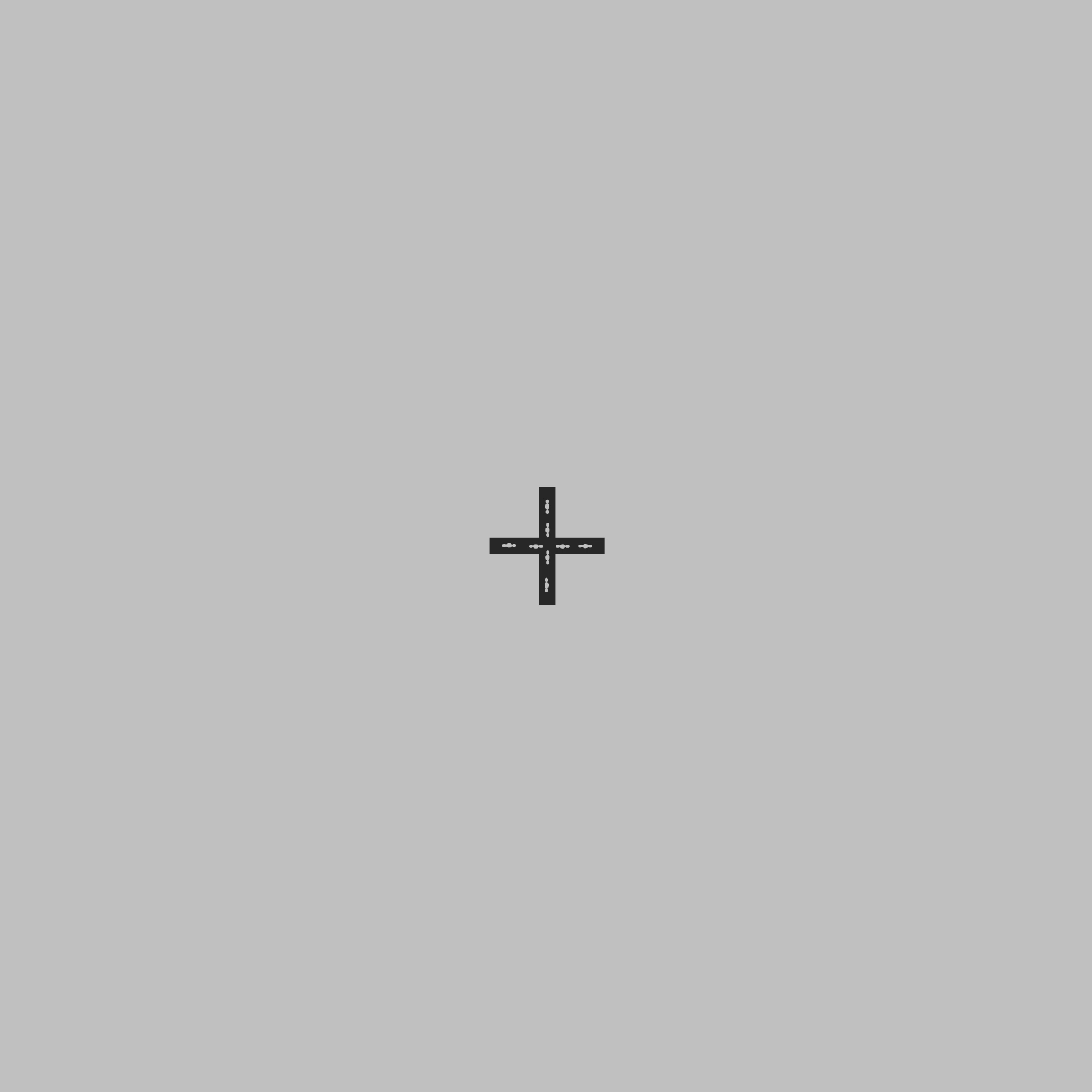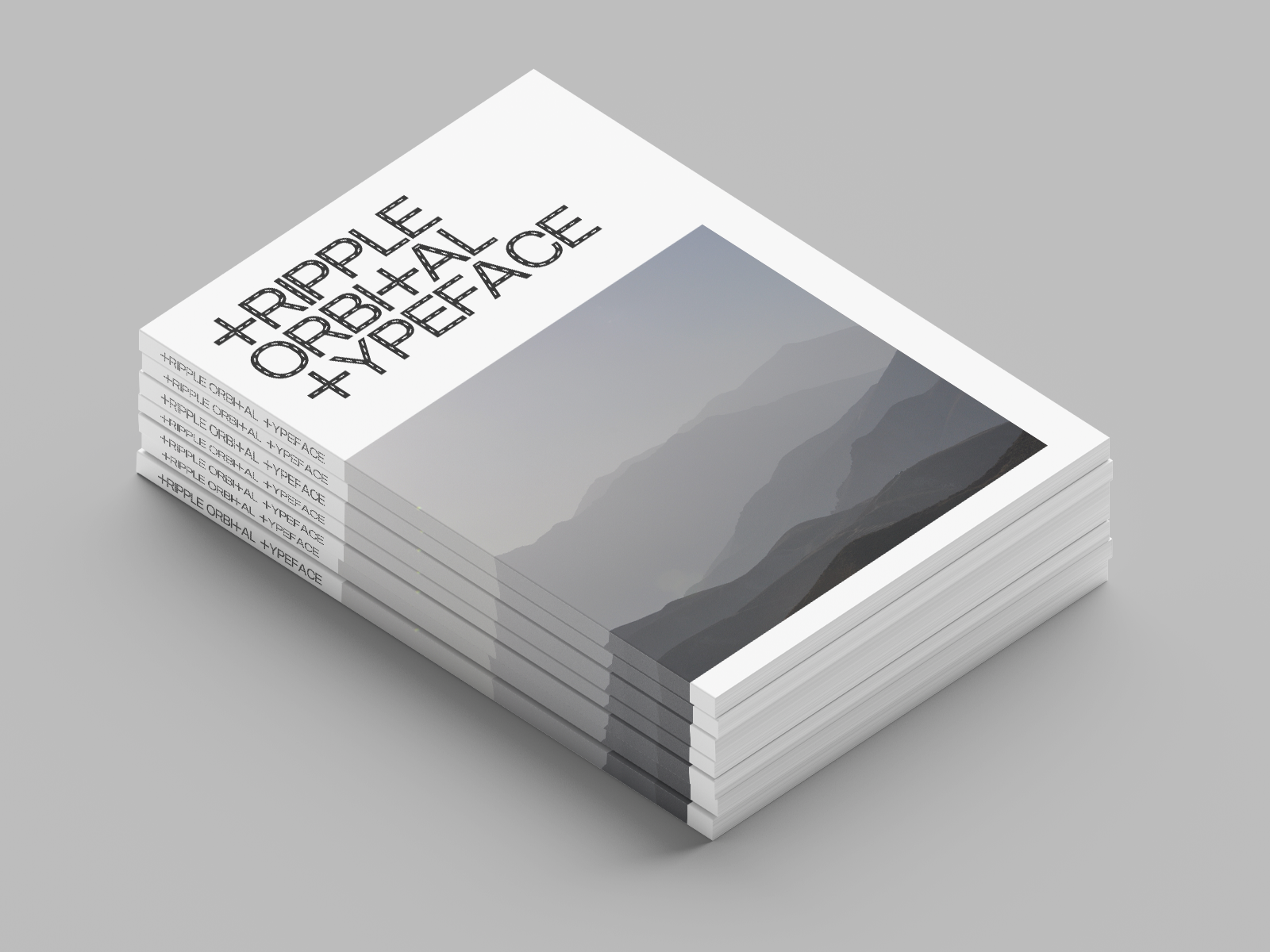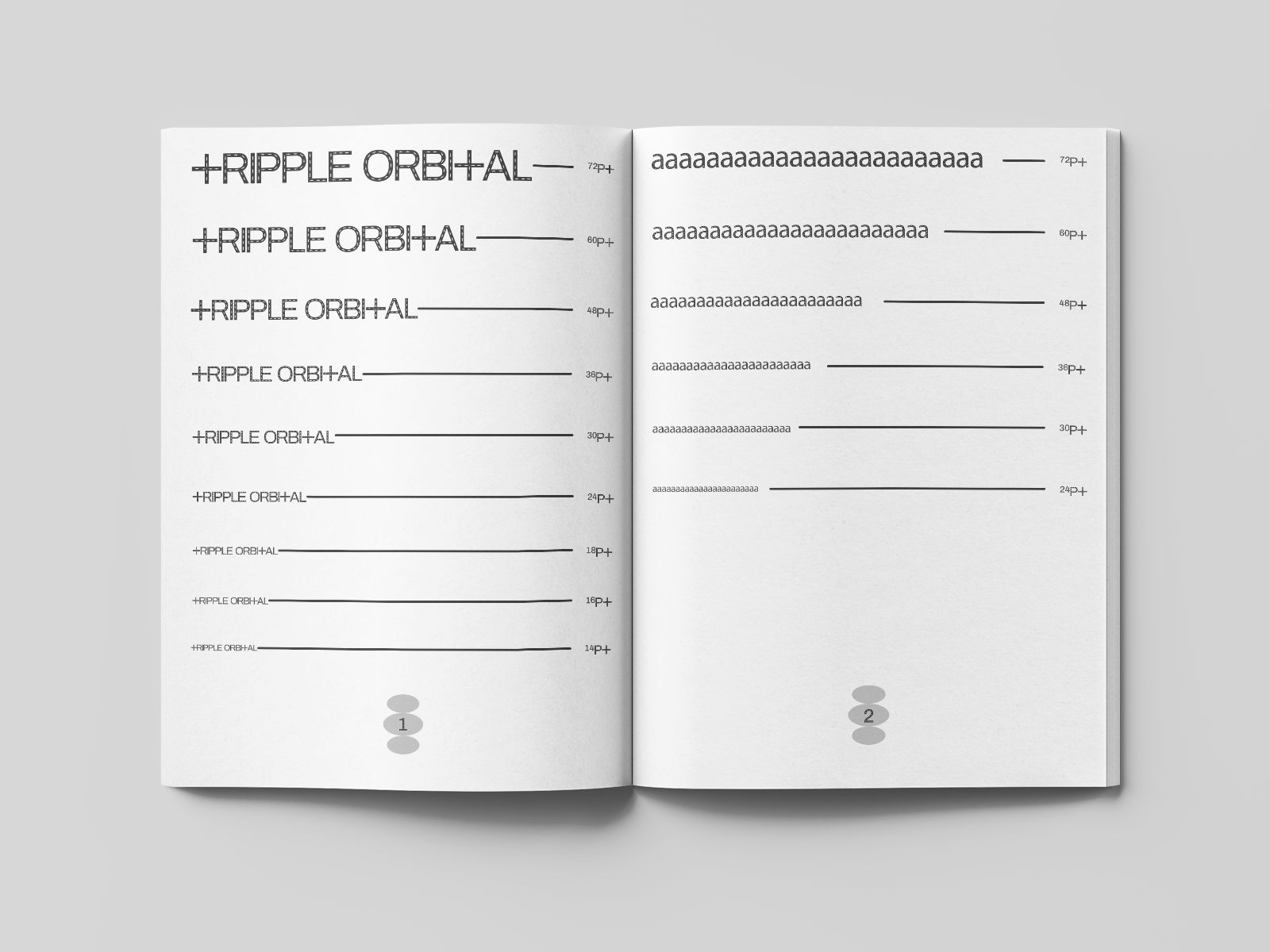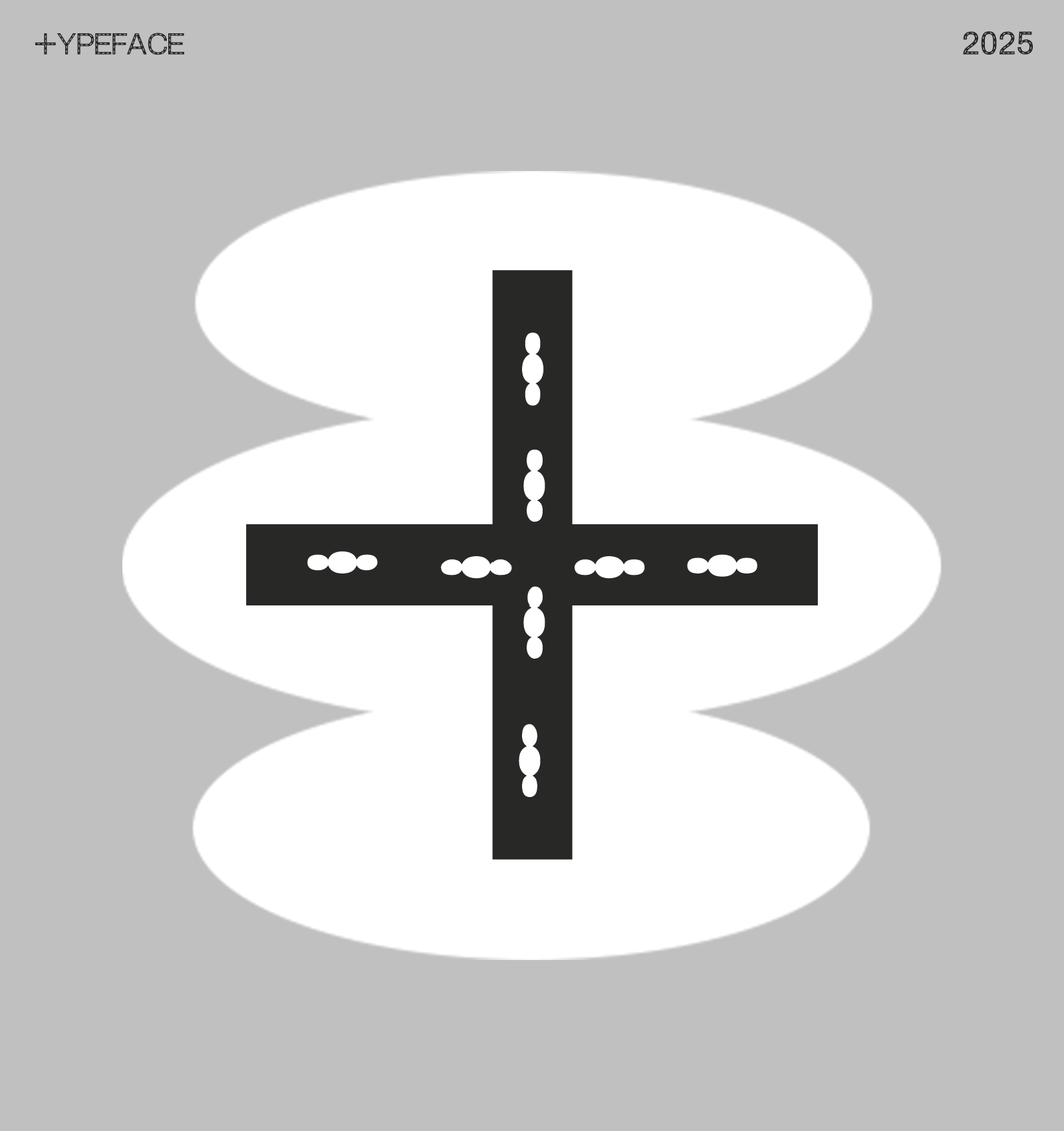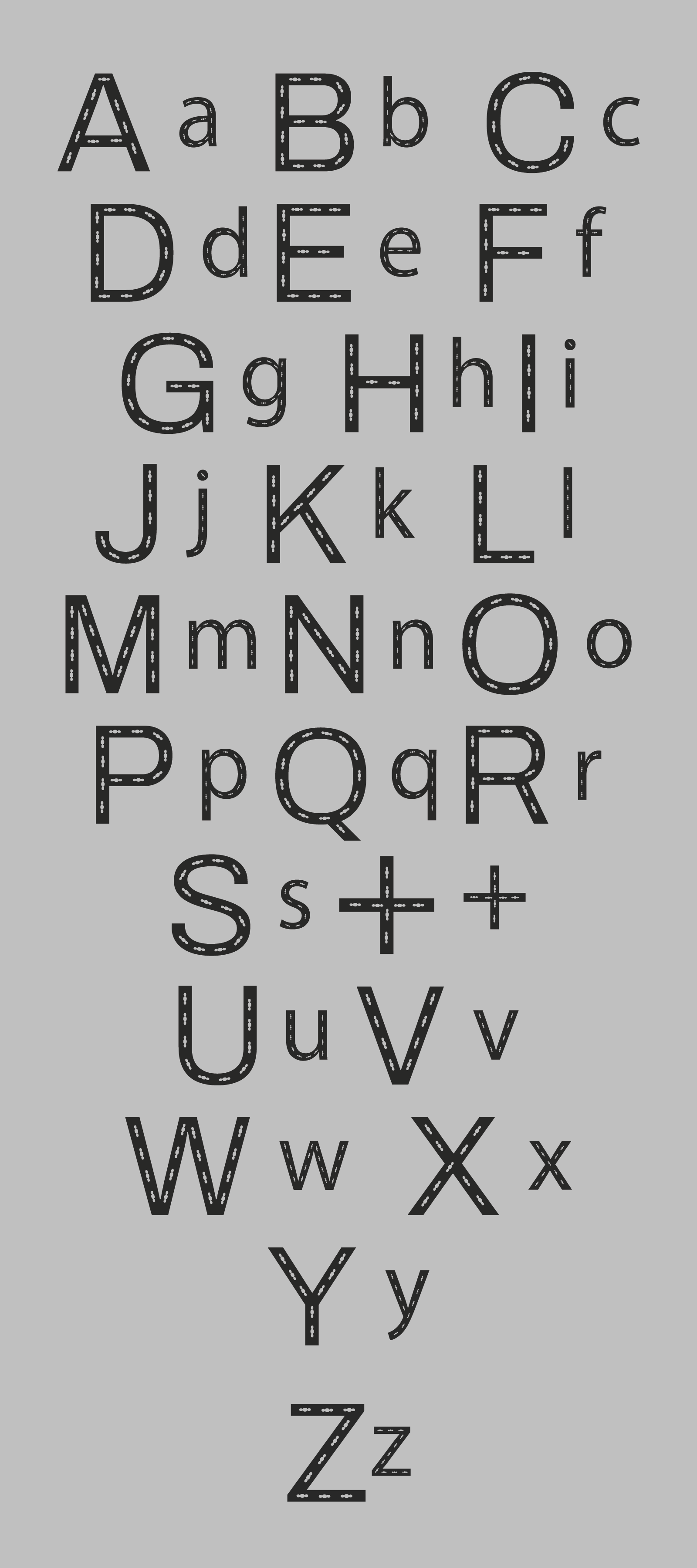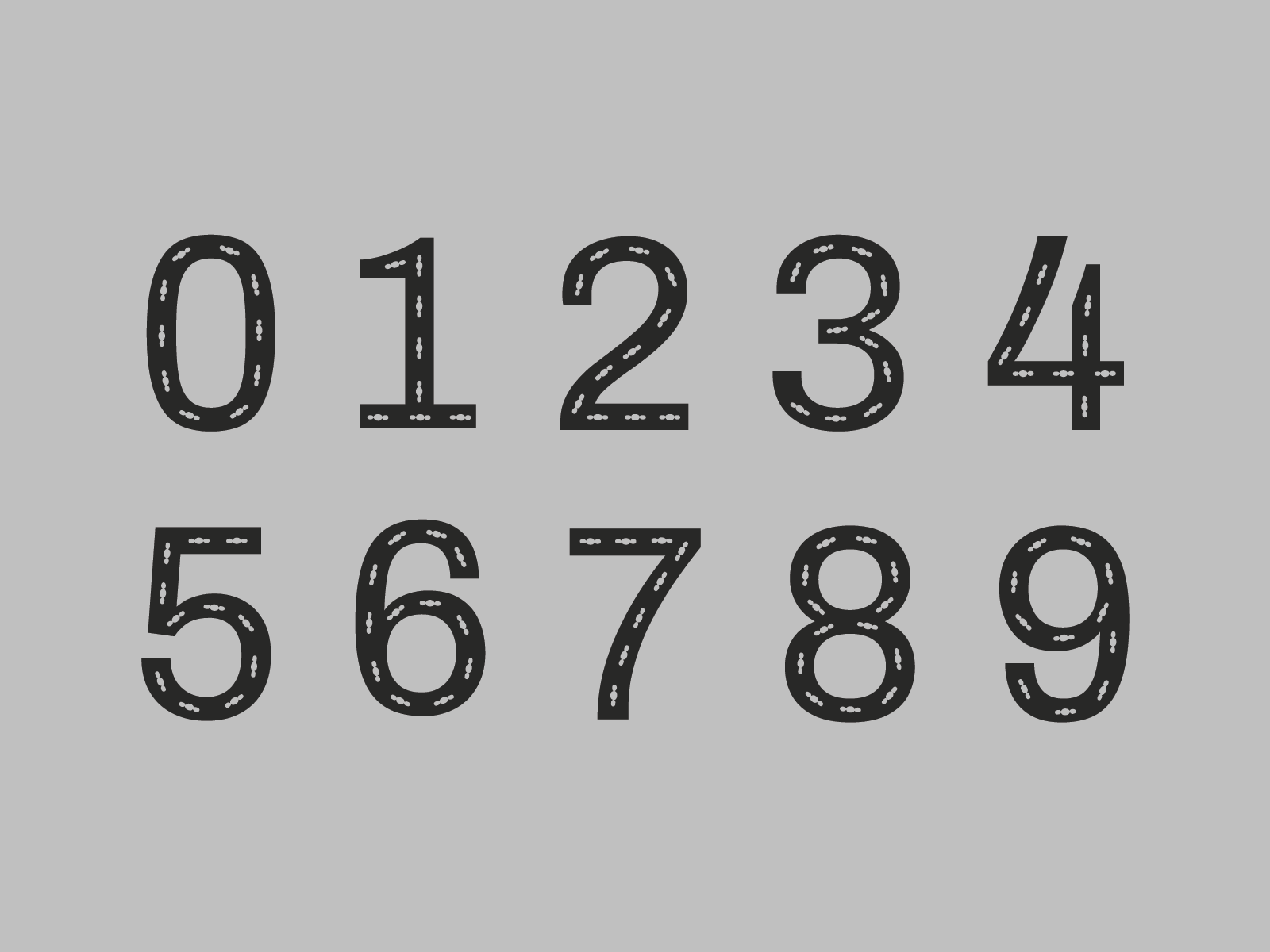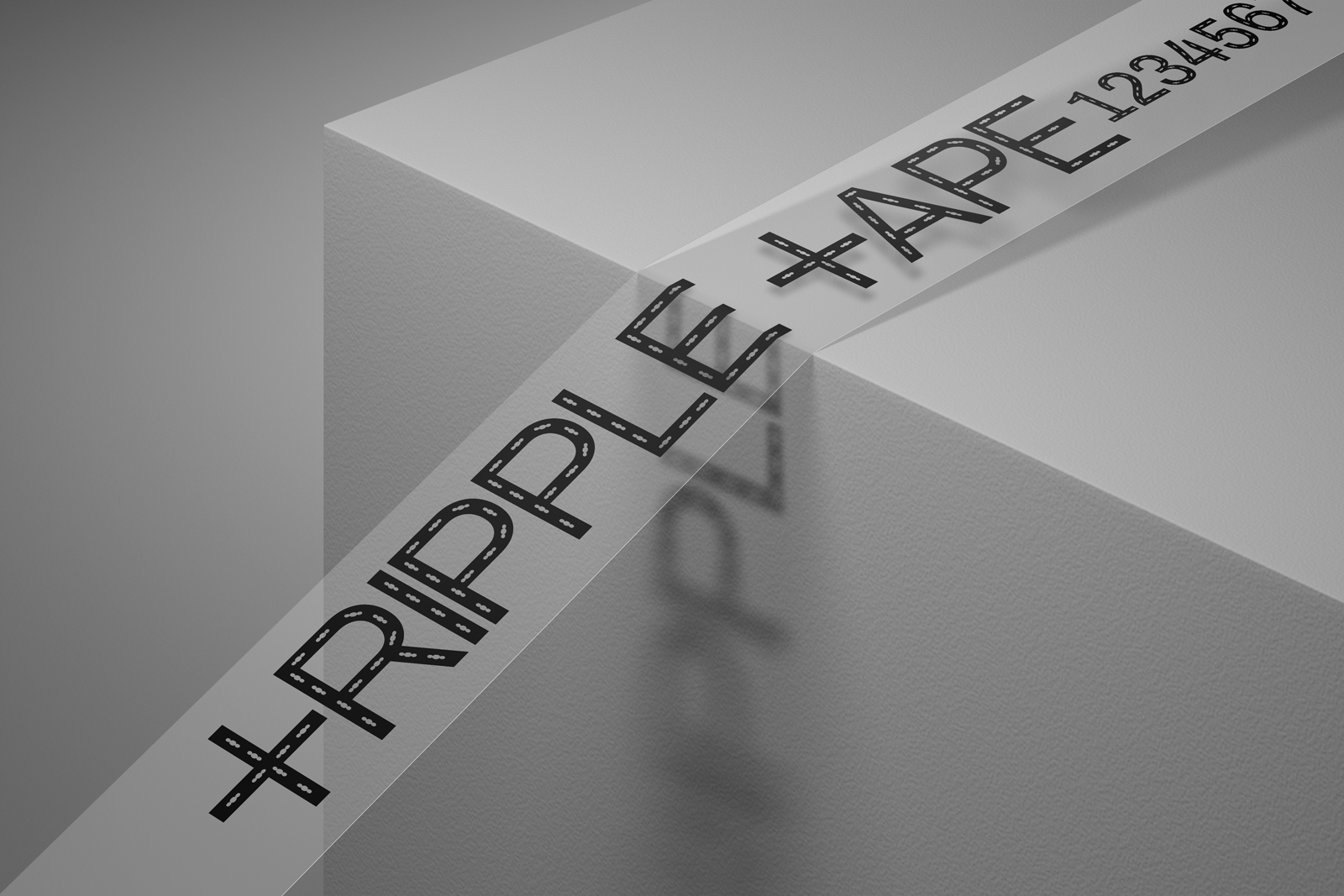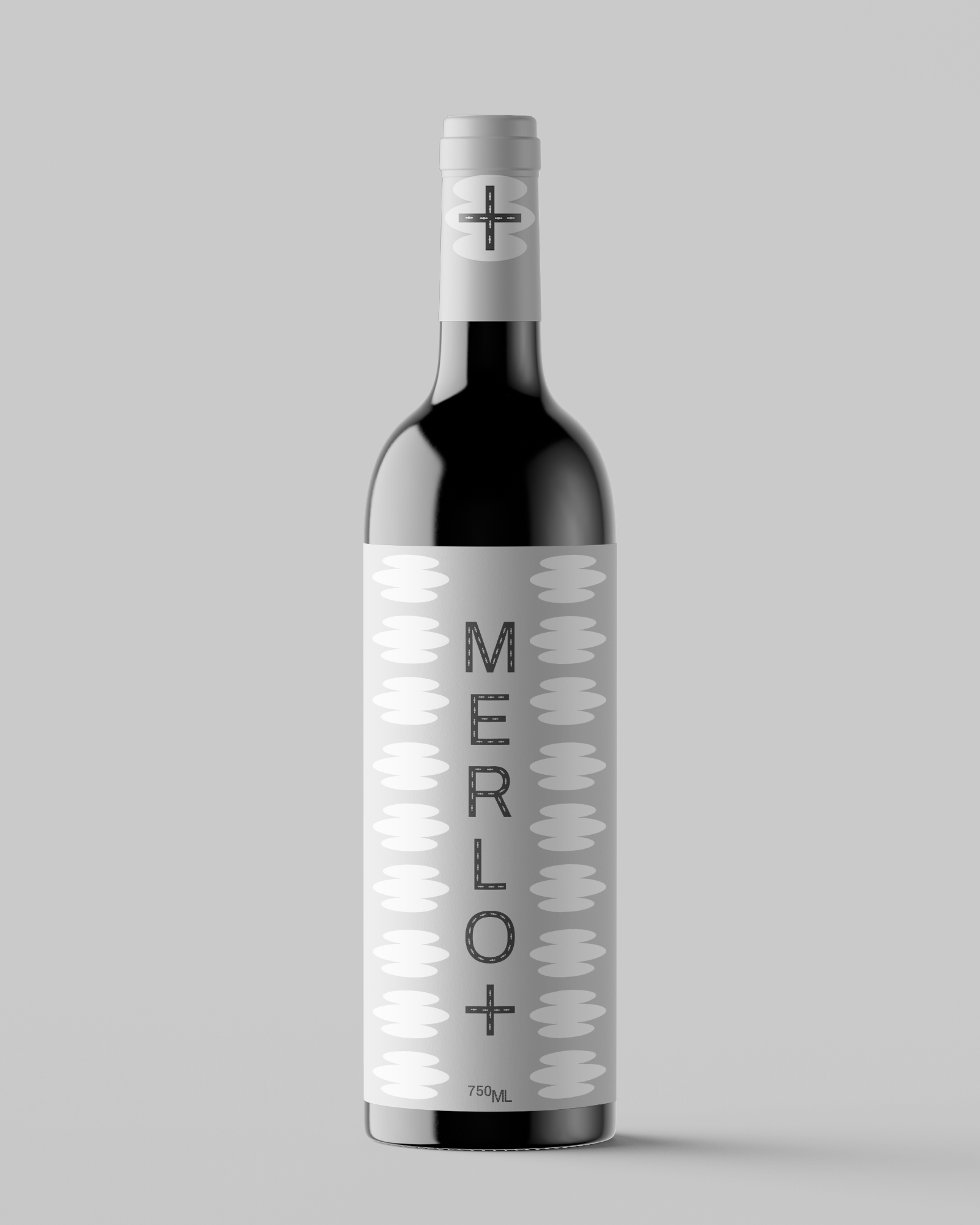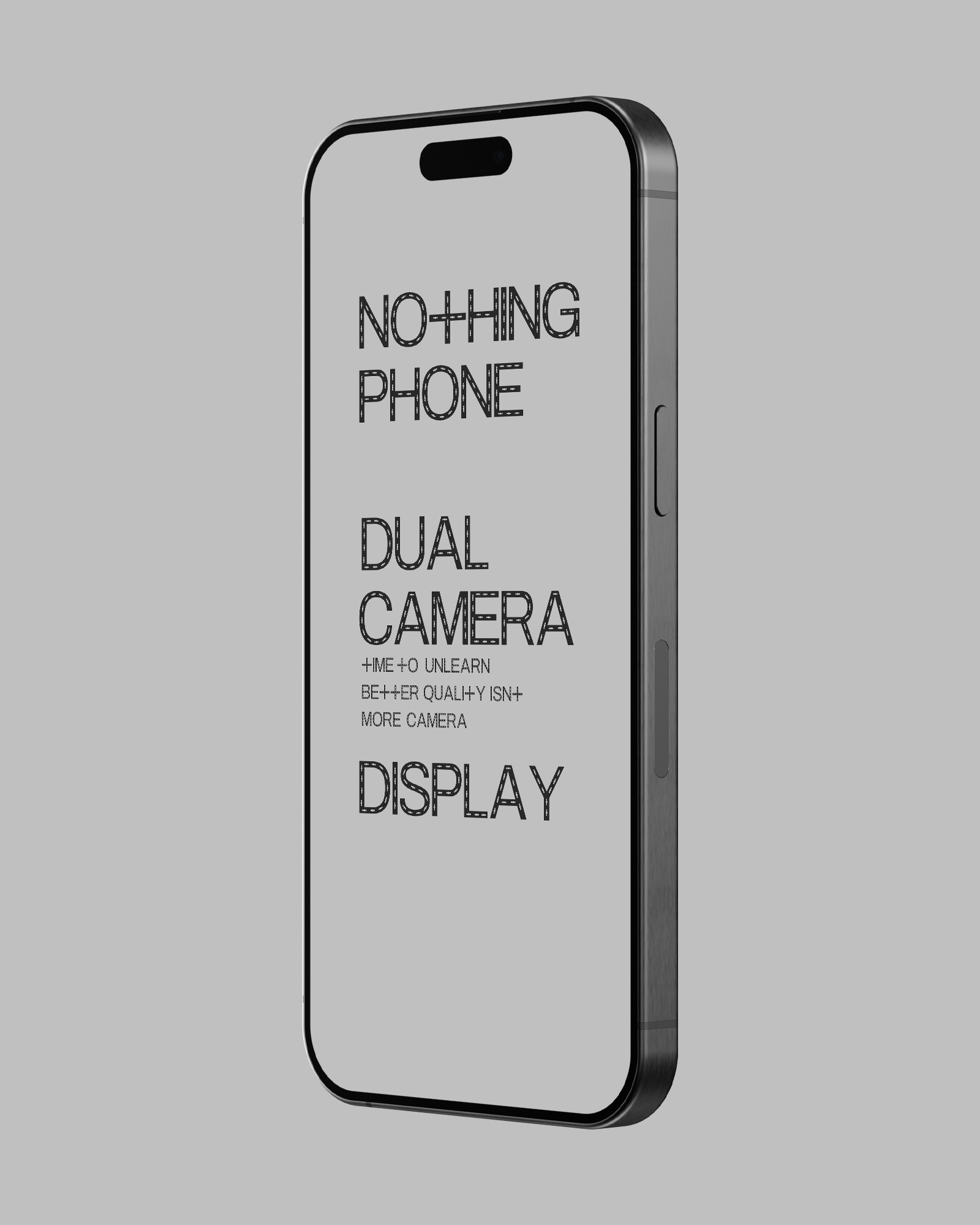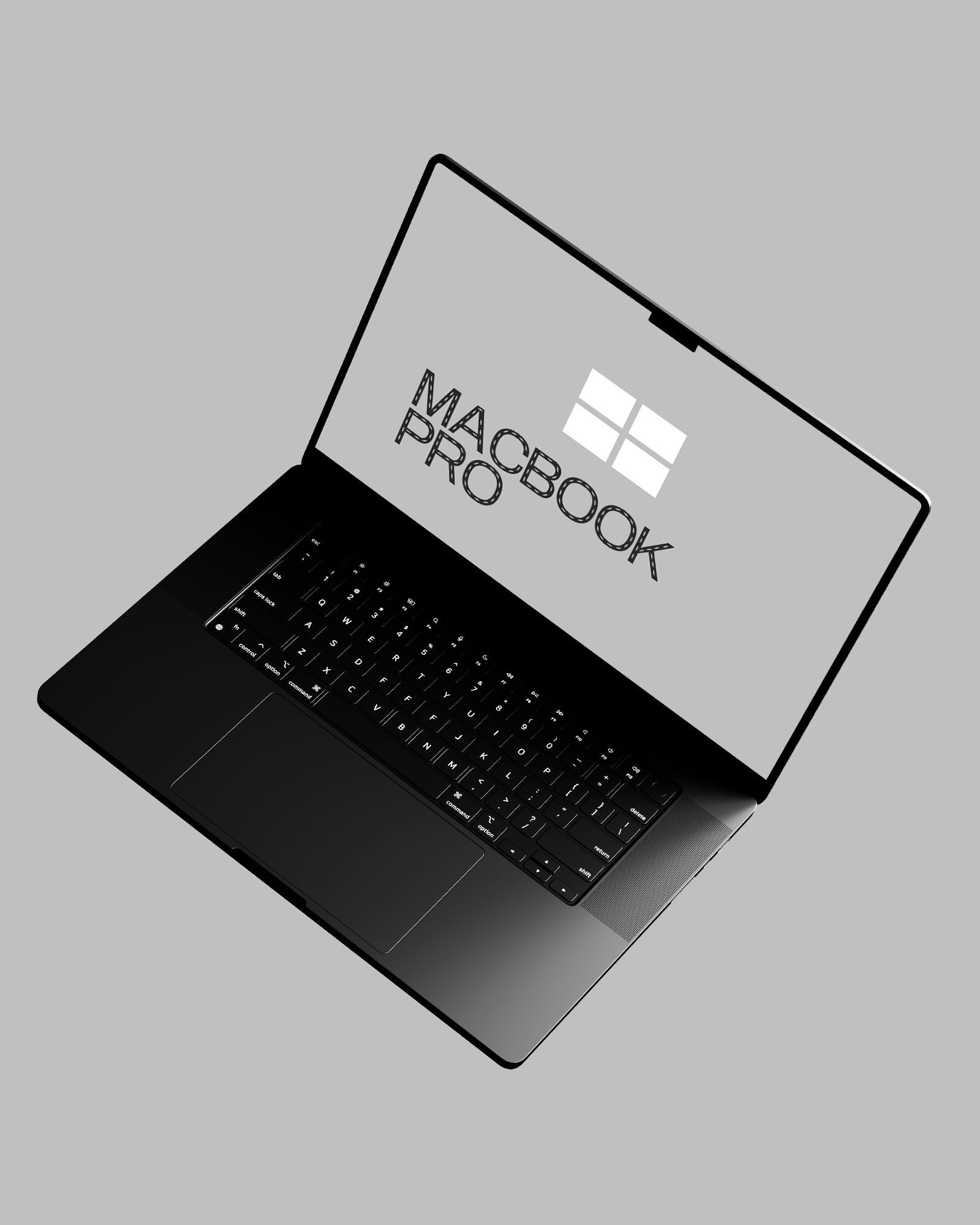
Tripple Orbital Typeface
Download Tripple Orbital Typeface from LOS IMPRIMIR. This product includes 4 styles: Regular, Italic, Round & Round Italic. Tripple Orbital is perfect for creating titles and logotypes with its unique characters.